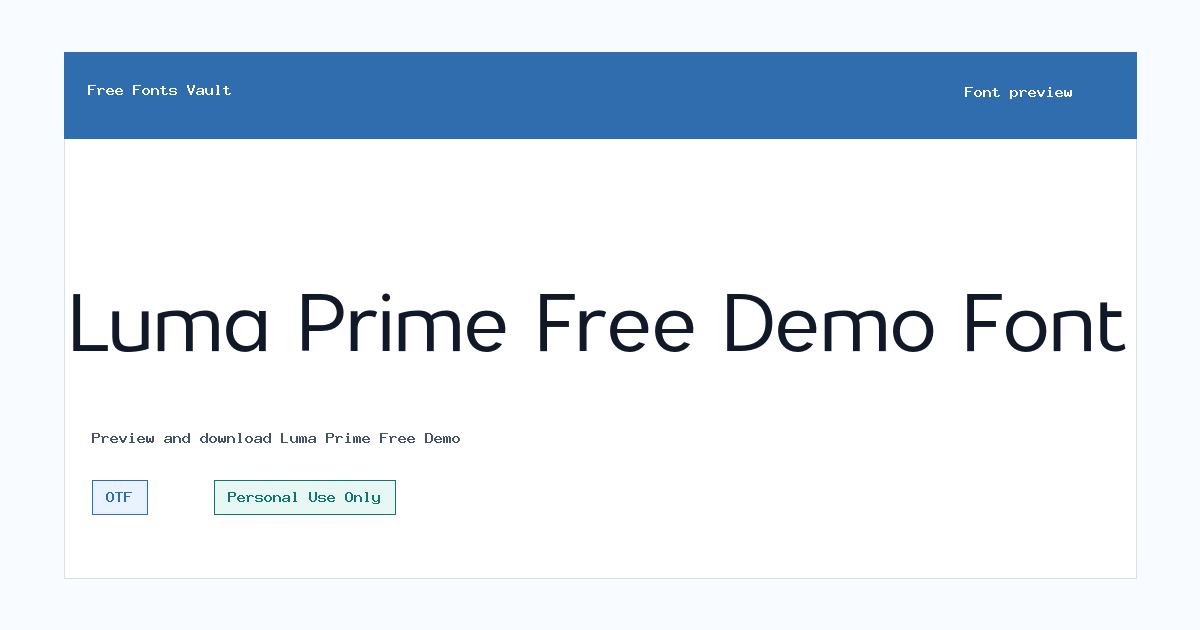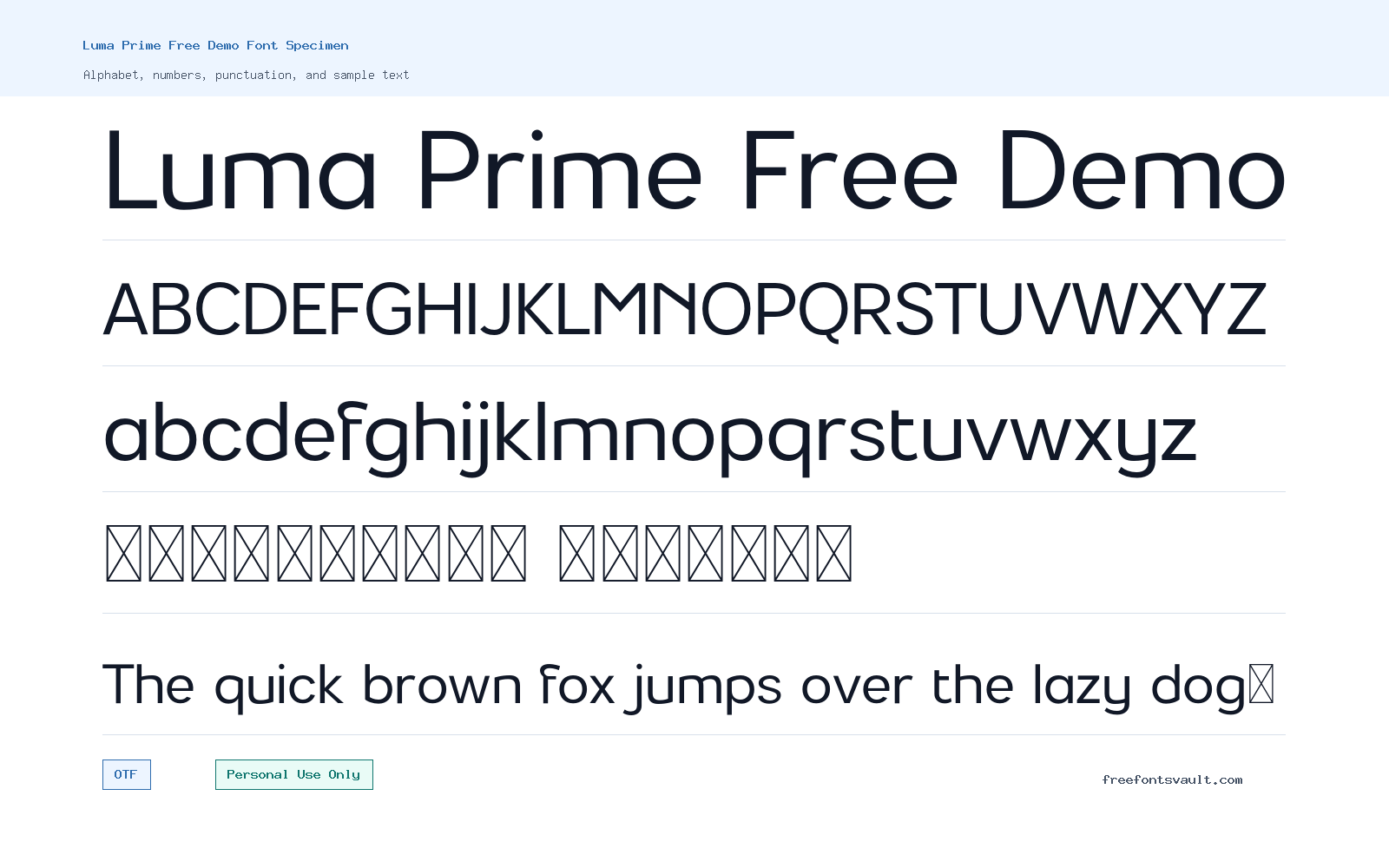
Luma Prime Free Demo
Luma Prime Free Demo font preview showing the family name
Luma Prime Free Demo Font
Luma Prime Free Demo font specimen showing alphabet, numbers, and sample text
Luma Prime Free Demo font.
Luma Prime Free Demo is a personal-use demo font from VPfonts. It comes as an OTF file in a regular style, making it useful for trying out clean sans serif lettering in previews, concept layouts, and non-commercial design drafts.
About Luma Prime Free Demo
Luma Prime Free Demo is best approached as a testable sans serif display option rather than a complete commercial font package. The available file is an OpenType font in a regular 400 weight, so visitors can use the preview tool to check how the letter shapes, spacing, and proportions behave before downloading. Because the available style is regular only, it is most useful when you need one consistent voice for headings, short labels, logo drafts, poster text, or presentation mockups. If your design needs bold, italic, condensed, or extended styles, check whether the full family exists from the designer before building a larger visual system around this demo.
For practical design work, start by testing the font with the exact words you plan to use. Sans serif fonts can change character quickly depending on spacing, capitalization, and size. Try your brand name in uppercase, title case, and lowercase. Then test a few short phrases, numbers, punctuation, and common letter pairs such as AV, To, Wa, and LY. This is especially useful for logo work, posters, thumbnails, packaging concepts, and web mockups where a few letters may carry most of the visual identity. If the font feels too tight or too open in your layout, adjust tracking before deciding whether it fits the project.
Luma Prime Free Demo can work well in early-stage design exploration because a single regular OTF file is easy to install and test across common design apps. Use it for personal drafts, mood boards, social graphics, portfolio experiments, and layout studies where you want a clean sans serif direction without committing to a final type system. For longer reading text, test carefully at paragraph sizes. A font that looks strong in a headline may not always be comfortable in body copy, small captions, navigation menus, or dense interface screens. Check readability on both light and dark backgrounds, and preview it at the smallest size your project may require.
For pairing, keep the supporting type simple. If Luma Prime Free Demo is used for the main heading or logo draft, pair it with a neutral serif or a straightforward humanist sans serif for body text. Avoid pairing it with another strong display font unless the layout is very short and controlled. In posters or web mockups, give the font enough space around it so the lettering can stand on its own. For logo concepts, test the font in black and white first before adding color, gradients, shadows, or texture. That makes it easier to judge the basic shape, balance, and spacing of the wordmark.
• Sans serif demo font intended for personal-use design exploration.
• Useful for checking headline, logo, poster, and web mockup text before choosing a final licensed font.
• Personal logo drafts and wordmark experiments.
• Poster titles, social media graphics, and thumbnail text tests.
• Website and app mockups where a clean sans serif direction is being explored.
• Presentation slides, mood boards, and non-commercial concept layouts.
• Short headings, labels, and display text rather than long paragraphs.
Is it good for body text?
It may work for short text, but test carefully before using it in long paragraphs. A single regular demo style is usually easier to judge in headings, labels, posters, and mockups.